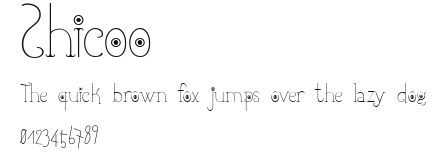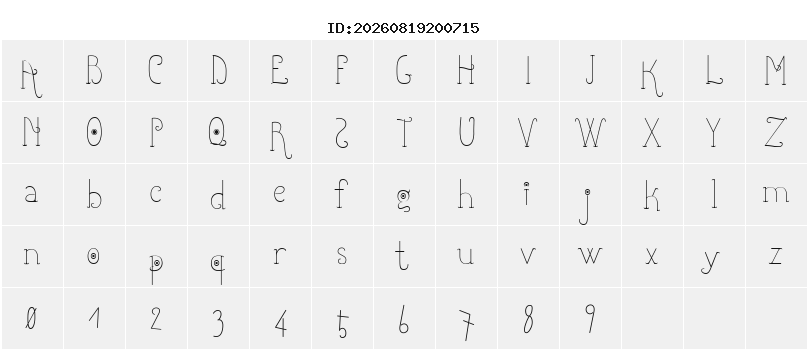
• Font Name: Shicoo
• Font ID: 1.000;pyrs;Shicoo
• Full Font Name: Shicoo
• PostScript Name: Shicoo
• Character Count: 118
• Designer: Felipe Bica, Filho Luzz, Matheus Frota e Eduardo Novais
• Manufacturer: Felipe Bica, Filho Luzz and Matheus Frota
About Shicoo.ttf
Shicoo.ttf is a modern, elegant sans-serif font designed for ultimate readability and visual harmony. Perfect for branding, headlines, web design, and print materials.